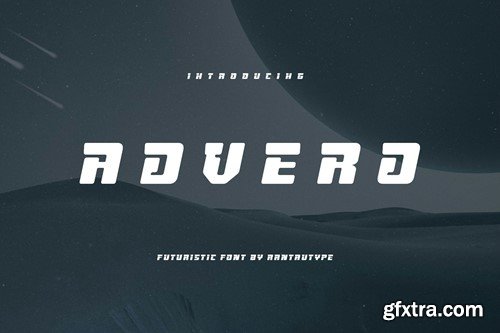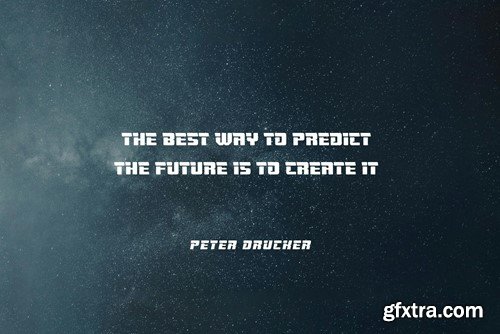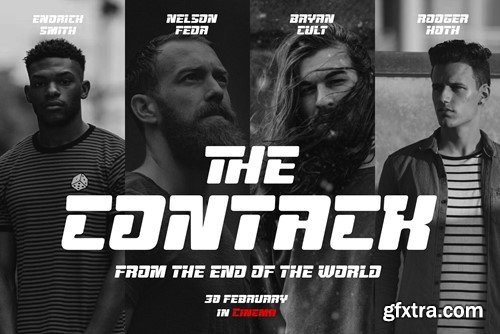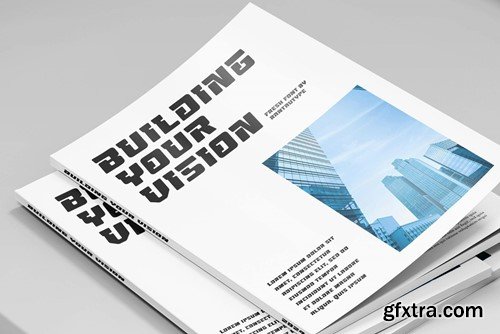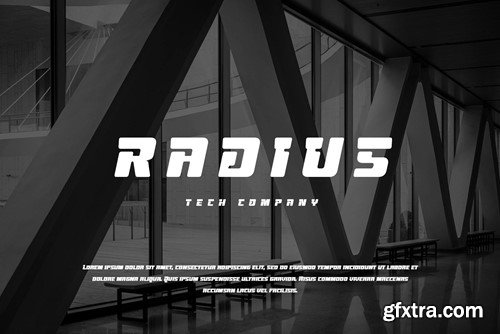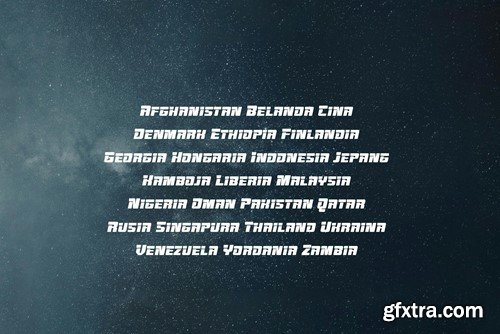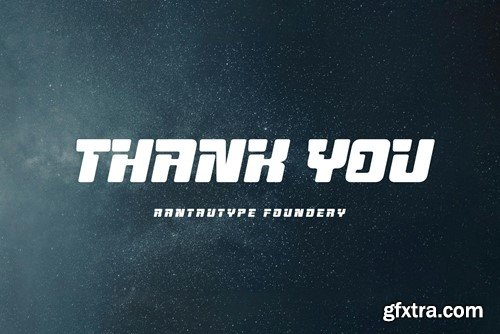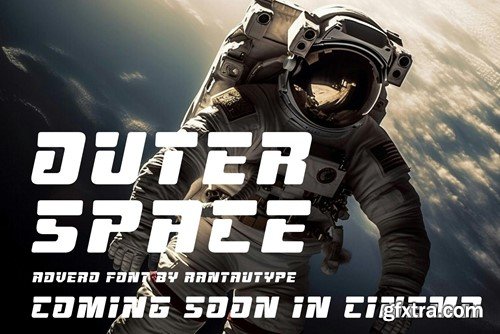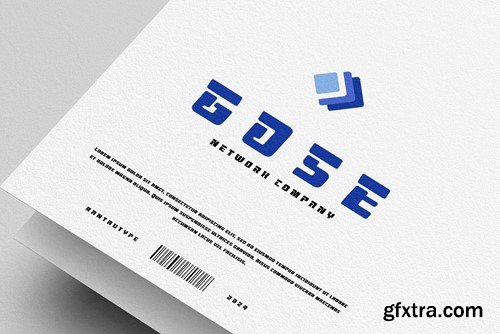
阿佛雷特未来主义字体PZ468C2
Advero is a futuristic font inspired by the science fiction movies and futuristic digital concept. Modern and unique letterform is two word for this font. Advero come with ligature, alternate and multilingual support. Advero can make your design standout! Advero is Perfectly suitable for any creative endeavor, business project, corporate project, sports brand, logo, business card, games, posters, film/movie, packaging, events, advertising, digital futuristic concept and more. Features: File include: Multilingual Langguange support for: Afrikaans, Albanian, Asu, Basque, Bemba, Bena, Breton, Catalan, Chiga, Cornish, Danish, Dutch, English, Estonian, Faroese, Filipino, Finnish, French, Friulian, Galician, German, Gusii, Icelandic, Indonesian, Irish, Italian, Kabuverdianu, Kalenjin, Kinyarwanda, Luo, Luxembourgish, Luyia, Machame, Makhuwa-, Meetto, Makonde, Malagasy, Manx, Morisyen, Northv Ndebele, Norwegian, Bokmål, Norwegian, , Nynorsk, Nyankole, Oromo, Portuguese, Quechua, Romansh, Rombo, Rundi, Rwa, Samburu, Sango, Sangu, Scottish, Gaelic, Sena, Shambala, Shona, Soga, Somali, Spanish, Swahili, Swedish, Swiss, German. Thank you for visit our store and Hope you enjoy our font!!